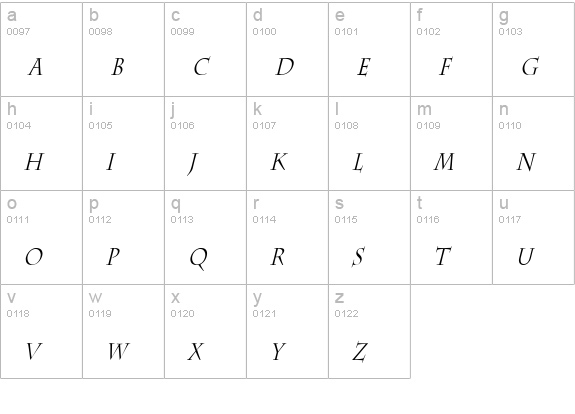
Chaz Thin Italic is a delicate, low-contrast, italic variant in the Chaz typeface family \xE2\x80\x94 well suited to fashion editorial, minimal branding, and high-contrast display.
Chaz Thin Italic font is a sleek and modern typeface that exudes sophistication and elegance. Its delicate and slender design adds a touch of refinement to any project, making it perfect for branding, editorial design, and more. The italic style of Chaz Thin creates a sense of movement and fluidity, adding a dynamic element to your text. What makes Chaz Thin Italic font even more appealing is that it is available for free download at FontsMarket.com. This means that you can enhance your designs with this stylish typeface without any cost. Whether you're working on a personal project or a professional assignment, Chaz Thin Italic font is a versatile and stylish choice that is sure to make an impact. Download it now and elevate your design projects with this beautiful typeface.